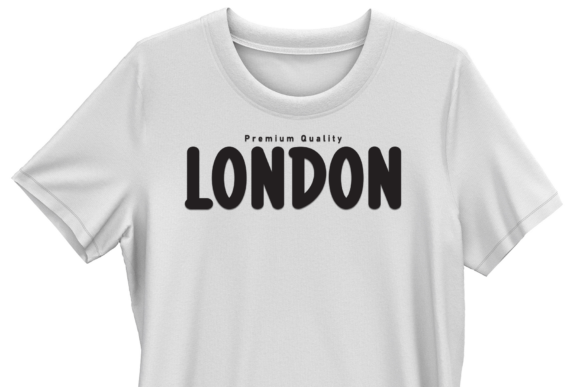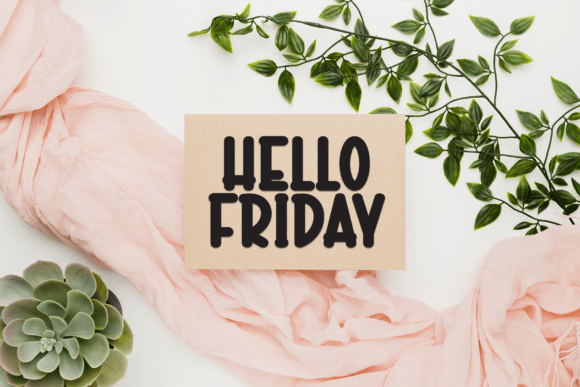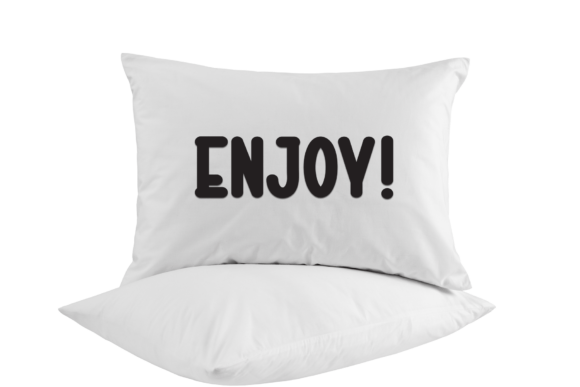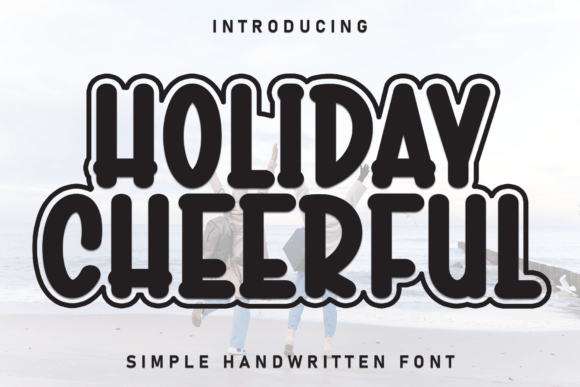
Introduction to Holiday Cheerful Font
Welcome, to the enchanting world of a charming and inviting hand-scripted display font, steeped in genuine warmth, perfect for adding a playful, jovial touch to your designs.
The whimsical charm of this font is what sets it apart, making it an ideal choice for unique creations like wedding invitations, greeting cards, and any artistic project requiring a hint of fun and elegance Full of vitality and infectious joy, this font type is a delightful choice for projects that emanate an aura of cheerfulness and whimsical charm.
Key Features of Holiday Cheerful Font
Why Choose Holiday Cheerful Font?